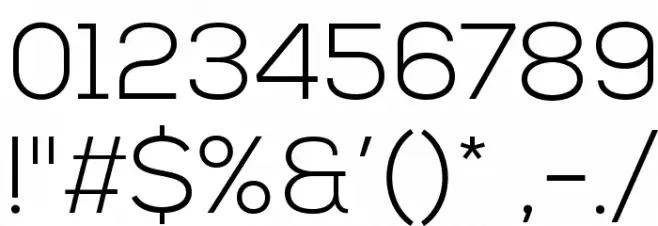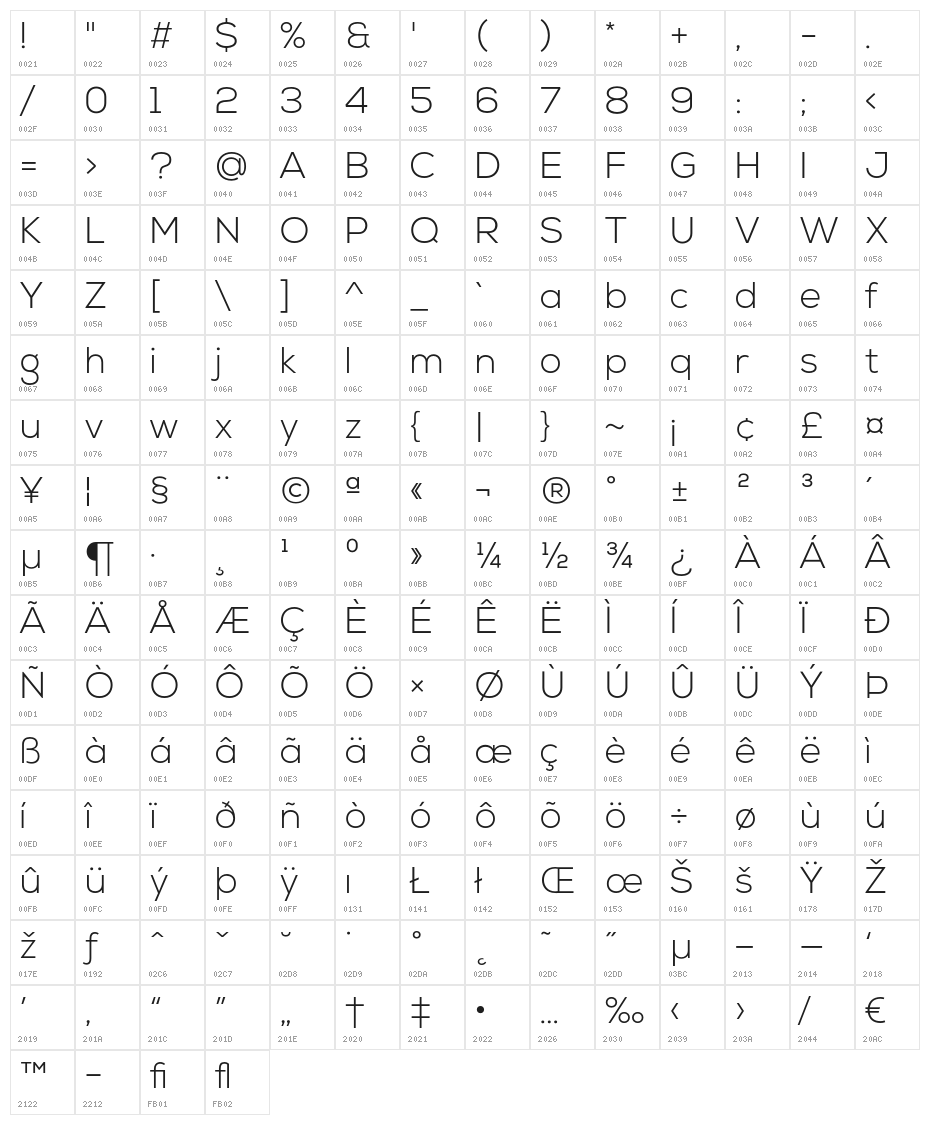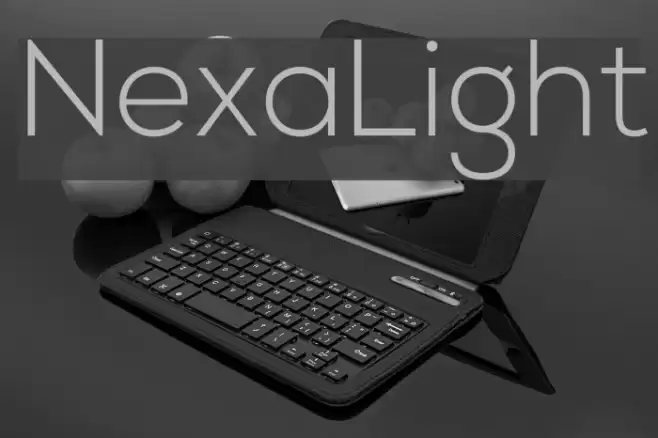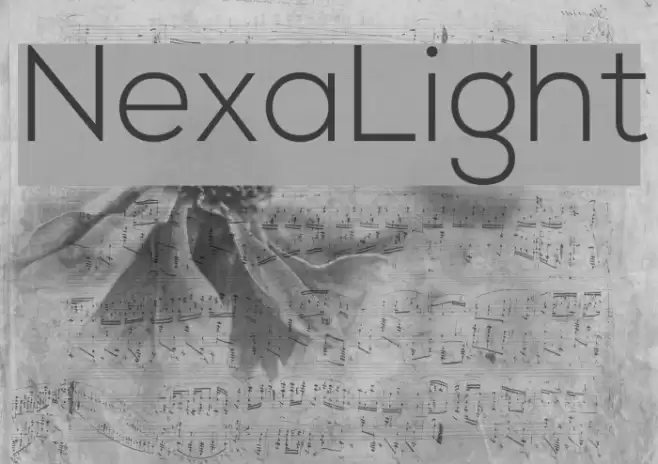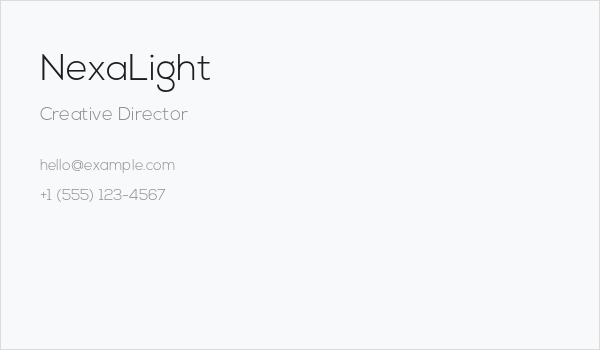
NexaLight Font
NexaLight Description
This font features a clean and modern sans-serif design with geometric influences. The characters are evenly spaced, providing a balanced and harmonious appearance. The uppercase letters are uniform in height, while the lowercase letters maintain a consistent x-height, contributing to its readability. The numerals are clear and distinct, matching the overall aesthetic of the font. Special characters are designed with simplicity, ensuring they blend seamlessly with the rest of the typeface. This font is versatile and suitable for a variety of applications, from digital interfaces to print media.